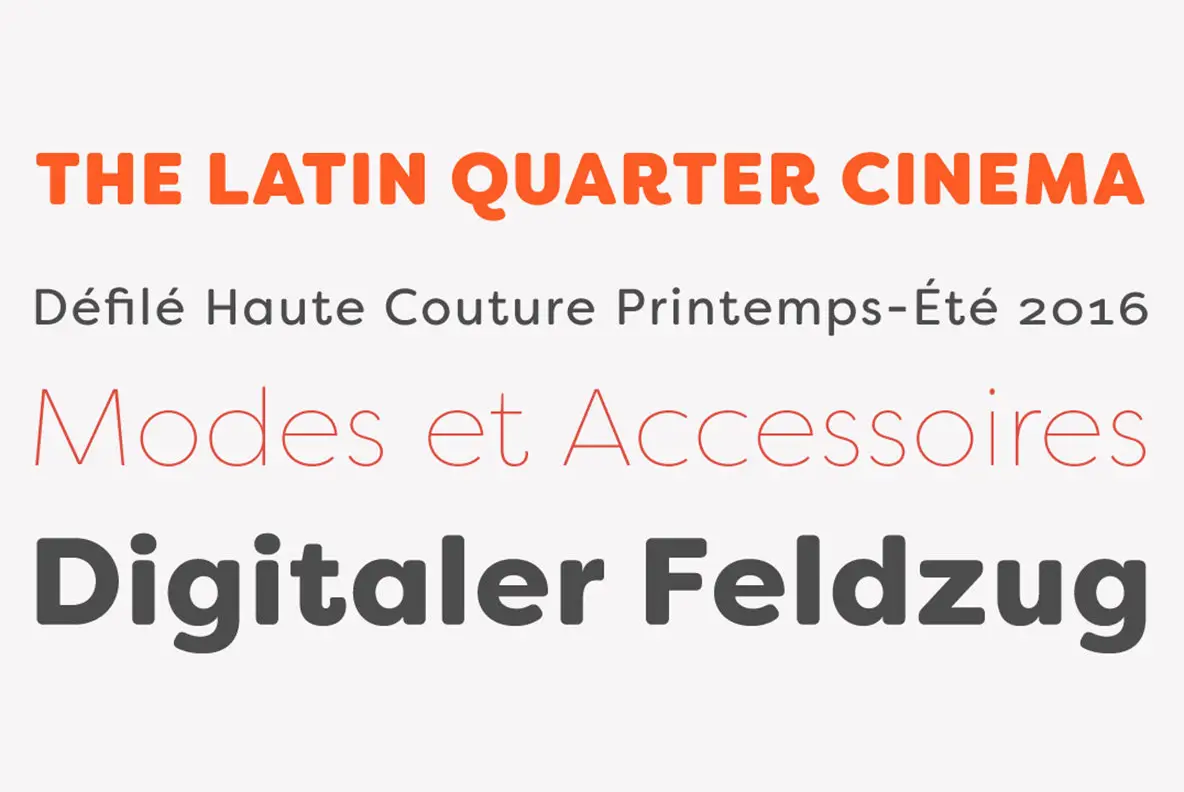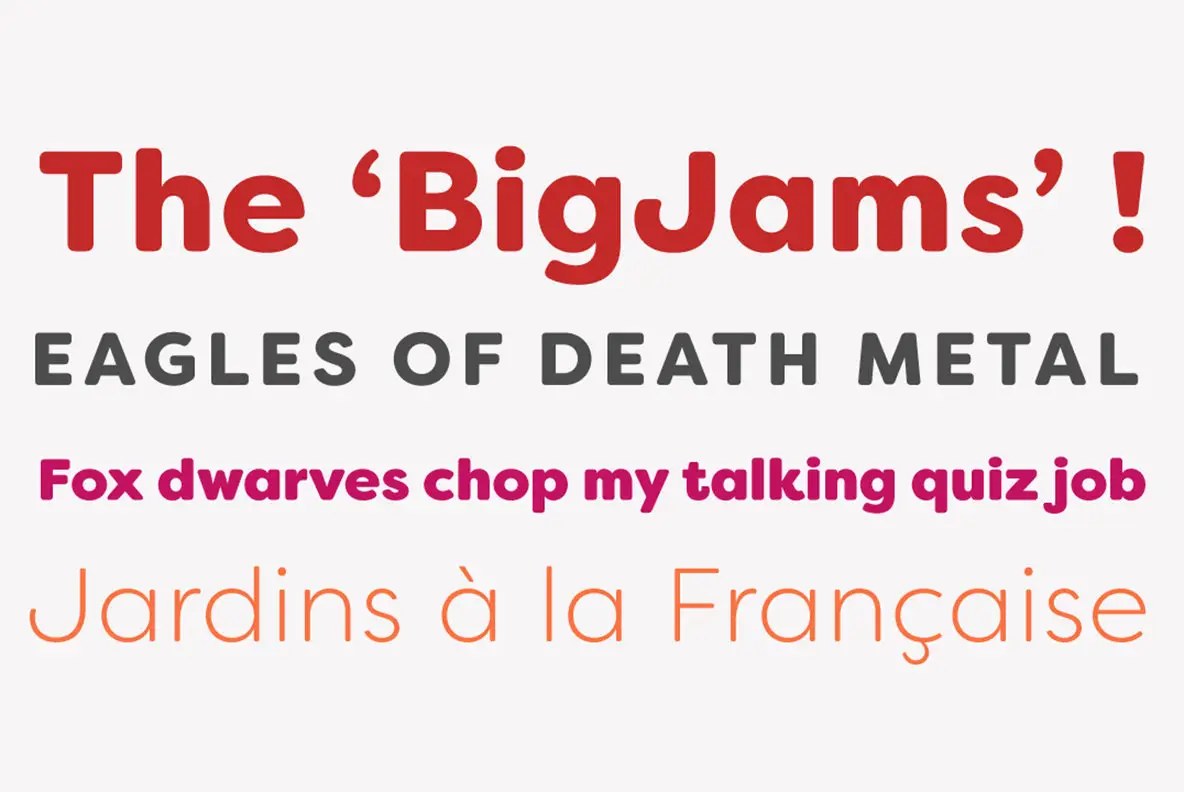
Filson Soft Font Torrent . The font family offers 16 variations (8 weights plus italics). It contains 16 fonts from thin to heavy with with powerfull opentype features.
At first sight, the main feature of filson soft are the distinctive. Web filson soft is the rounded version of the popular filson pro. Web download filson soft regular font.
Filson Soft Mostardesign Type Foundry
At first sight, the main feature of filson soft are the distinctive. Web download filson soft regular font. The font family offers 16 variations (8 weights plus italics). Web filson soft is the rounded version of the popular filson pro.
Filson Soft Font Torrent - Web download filson soft regular font. Web filson soft is the rounded version of the popular filson pro. Web filson soft font is a new geometric sans font family with a lot of charm. A sans serif typeface with 32 styles, available from adobe fonts for sync. At first sight, the main feature of filson soft are the distinctive.
Filson Soft Font Torrent - A sans serif typeface with 32 styles, available from adobe fonts for sync. Web filson soft font is a new geometric sans font family with a lot of charm. The font family offers 16 variations (8 weights plus italics). The font family offers 16 variations (8 weights plus italics). Web filson soft is a new geometric sans font family with.
Filson Soft Font Torrent - Web filson soft is the rounded version of the popular filson pro. Web download filson soft regular font. Web explore filson designed by olivier gourvat at adobe fonts. At first sight, the main feature of filson soft are the distinctive. It contains 16 fonts from thin to heavy with with powerfull opentype features.
Filson Soft Font Torrent - Web filson soft is the rounded version of the popular filson pro. A sans serif typeface with 32 styles, available from adobe fonts for sync. It contains 16 fonts from thin to heavy with with powerfull opentype features. Filson soft regular by adobe systems incorporated. Web filson soft font is a new geometric sans font family with a lot of.
Filson Soft Font Torrent - Web download filson soft regular font. Web filson soft is the rounded version of the popular filson pro. A sans serif typeface with 32 styles, available from adobe fonts for sync. Filson soft regular by adobe systems incorporated. It contains 16 fonts from thin to heavy with with powerfull opentype features.
Filson Soft Font Torrent - Web filson soft font is a new geometric sans font family with a lot of charm. The font family offers 16 variations (8 weights plus italics). Web filson soft is the rounded version of the popular filson pro. Web download filson soft regular font. It contains 16 fonts from thin to heavy with with powerfull opentype features.
Filson Soft Font Torrent - Web filson soft is the rounded version of the popular filson pro. Web filson soft is the rounded version of the popular filson pro. A sans serif typeface with 32 styles, available from adobe fonts for sync. The font family offers 16 variations (8 weights plus italics). It contains 16 fonts from thin to heavy with with powerfull opentype features.
Filson Soft Font Torrent - Web explore filson designed by olivier gourvat at adobe fonts. The font family offers 16 variations (8 weights plus italics). A sans serif typeface with 32 styles, available from adobe fonts for sync. Filson soft regular by adobe systems incorporated. Web filson soft is a new geometric sans font family with a lot of charm.
Filson Soft Font Torrent - The font family offers 16 variations (8 weights plus italics). Web filson soft is the rounded version of the popular filson pro. At first sight, the main feature of filson soft are the distinctive. Web explore filson designed by olivier gourvat at adobe fonts. Web filson soft is the rounded version of the popular filson pro.
Filson Soft Font Torrent - Web filson soft is the rounded version of the popular filson pro. Web filson soft font is a new geometric sans font family with a lot of charm. A sans serif typeface with 32 styles, available from adobe fonts for sync. It contains 16 fonts from thin to heavy with with powerfull opentype features. At first sight, the main feature.
Filson Soft Font Torrent - At first sight, the main feature of filson soft are the distinctive. Web explore filson designed by olivier gourvat at adobe fonts. Web download filson soft regular font. Web filson soft font is a new geometric sans font family with a lot of charm. Filson soft regular by adobe systems incorporated.
Filson Soft Font Torrent - At first sight, the main feature of filson soft are the distinctive. It contains 16 fonts from thin to heavy with with powerfull opentype features. Web filson soft is the rounded version of the popular filson pro. Web filson soft font is a new geometric sans font family with a lot of charm. The font family offers 16 variations (8.
Filson Soft Font Torrent - It contains 16 fonts from thin to heavy with with powerfull opentype features. Filson soft regular by adobe systems incorporated. Web explore filson designed by olivier gourvat at adobe fonts. The font family offers 16 variations (8 weights plus italics). Web filson soft is the rounded version of the popular filson pro.